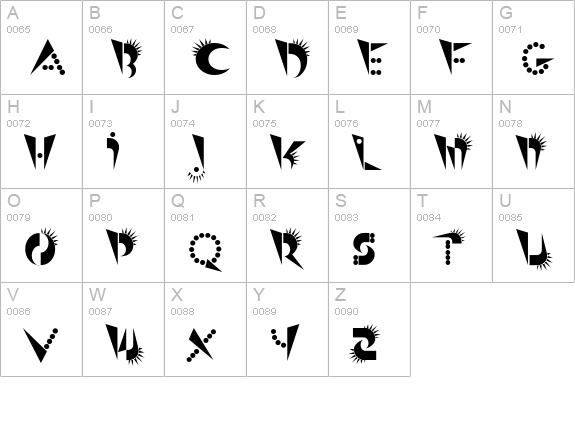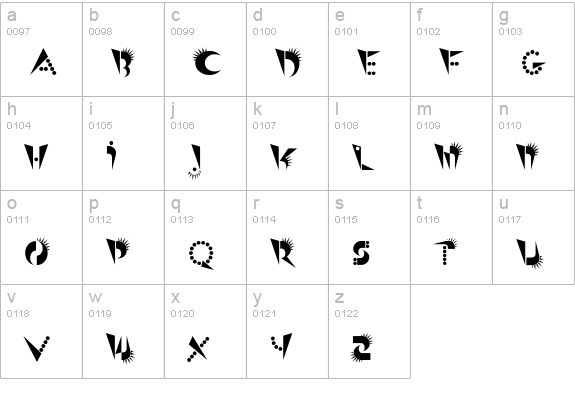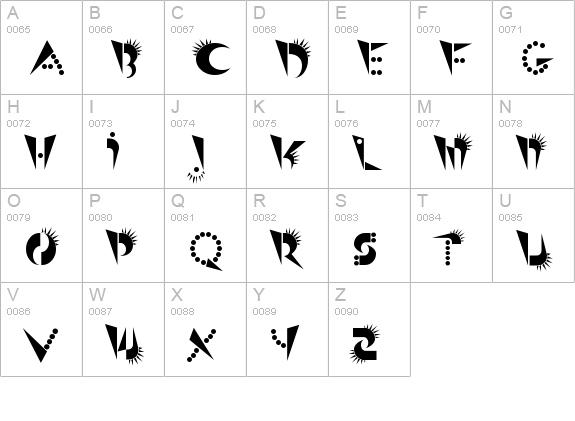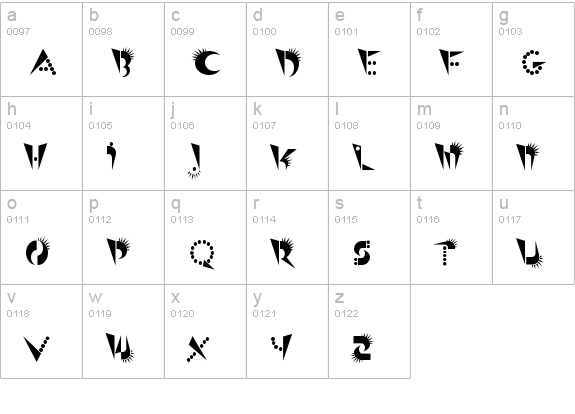
PunkerChicksinLeatherJackets font exudes rebellious spirit and edgy style, perfect for adding a bold statement to your designs. With its sharp angles and distinct character shapes, this font captures the essence of punk culture. The rugged and unconventional look of PunkerChicksinLeatherJackets font makes it ideal for music posters, album covers, and graphic designs that demand attention. This unique font is freely available to download at FontsMarket.com, allowing you to unleash your creativity without any constraints. Whether you're looking to add a touch of rock 'n' roll flair or create a striking visual impact, PunkerChicksinLeatherJackets font is the perfect choice for designers who dare to be different. Stand out from the crowd and make a statement with this free and dynamic font.